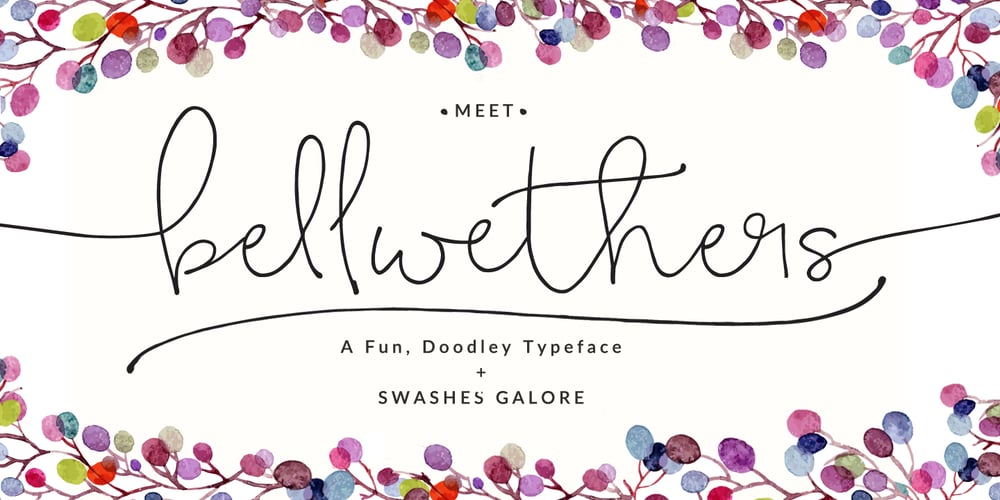
Bellwethers Font Family was designed by Angie Baldelomar and published by Angie Makes. Bellwethers contains 6 styles and family package options. Meet Bellwethers… a fancy, doodley, hand-drawn typeface with swashes galore. Perfect to add a little whimsy and carefree elegance to your next project. This font contains 6 separate fonts that include a full-on smorgasbord of swash letterforms. Swashes are easily accessible by simply dropping text into your desired swash font. To use a swash font, type lowercase a-z for the initial (Beginning of the word) font swashes and type uppercase A-Z for the terminal (Tail of the word) swashes. Fonts come as .otf files. The following fonts are included: Bellwethers Regular Bellwethers Extras Bellwethers Curly Swashes Bellwethers Long Swashes Bellwethers Short Swashes Bellwethers Longest Swashes are only available on lowercase letterforms, but you can always use the glyphs panel to manually add the swashes to your uppercase letters too. Bellwethers is perfect for so many design projects. Here’s just a few ideas: Logo Design Branding Design Web / Blog Graphics Physical products Invitations / Stationery The sky is the limit! I hope you enjoy using Bellwethers in your projects.